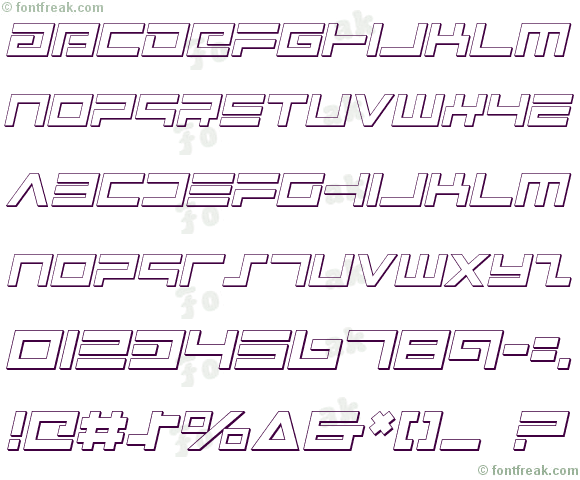
Avenger Shadow Italic
Avenger Shadow Italic, designed by Daniel Zadorozny, is a striking display font that falls within the decorative category. Released in 2014 under a freeware license, this font excels in capturing attention with its unique visual characteristics. The strokes are bold with a consistent weight, and the italic slant adds dynamism, enhancing its overall appeal. The shadow effect creates depth while maintaining clarity, making it perfect for various applications. The spacing is well-considered, ensuring legibility even at larger sizes, which contributes to its effectiveness in design.
This font is ideal for use in movie posters, where its dramatic flair can evoke excitement and interest. It can also elevate restaurant menus, providing a modern and engaging look that entices diners. Additionally, the Avenger Shadow Italic font is well-suited for event promotions, particularly in college settings, where its energetic style resonates with younger audiences. Graphic designers and small business owners will find this font particularly appealing for branding purposes, as it can help establish a strong visual identity.
The target audience for Avenger Shadow Italic includes graphic designers looking for unique typefaces to enhance their projects, as well as small business owners seeking to make a memorable impression on their clientele. Content creators can also benefit from this font, utilizing it in social media graphics and promotional materials.
What sets the Avenger Shadow Italic font apart is its ability to blend boldness with elegance, making it versatile for numerous design needs. Whether you're creating eye-catching advertisements or striking visual content, the Avenger Shadow Italic font free download offers an exceptional choice that will undoubtedly elevate your creative projects.